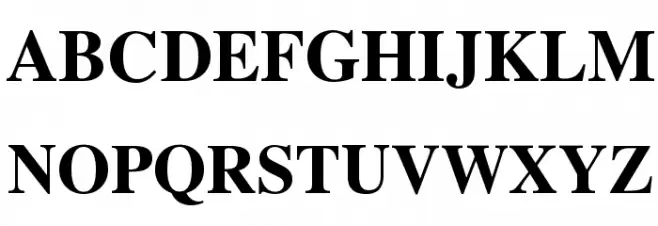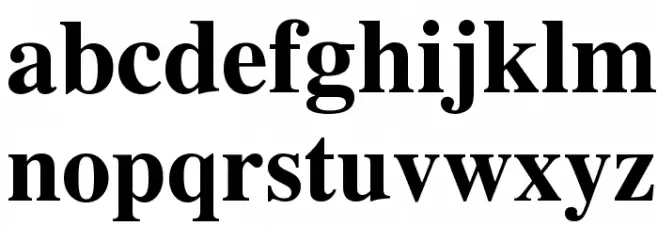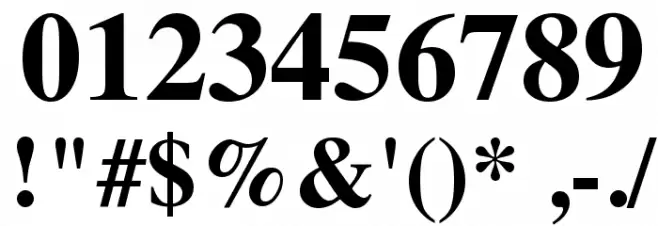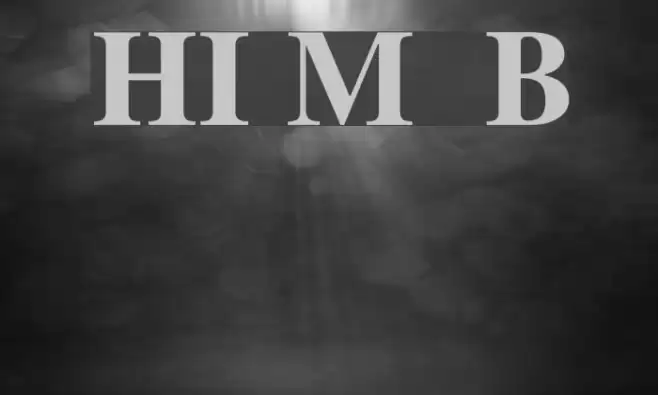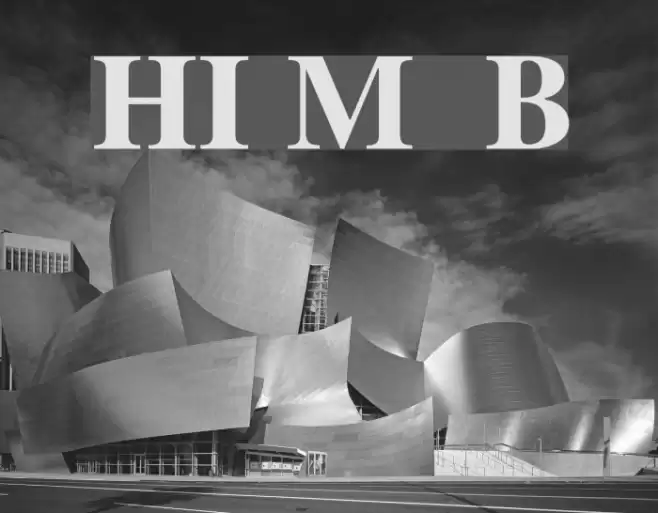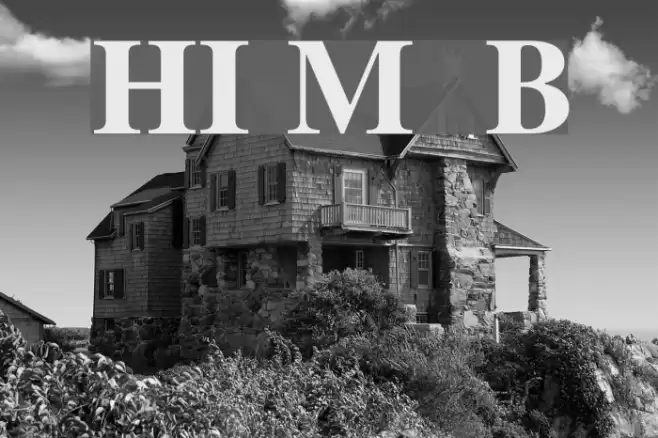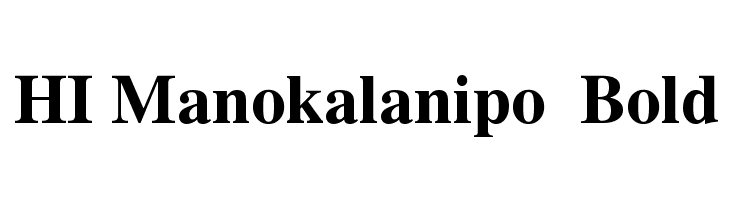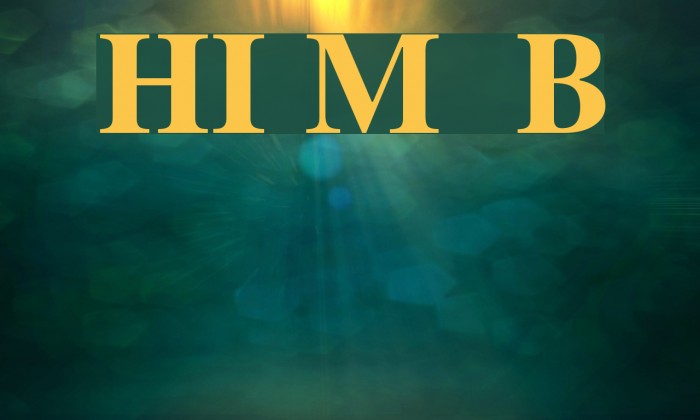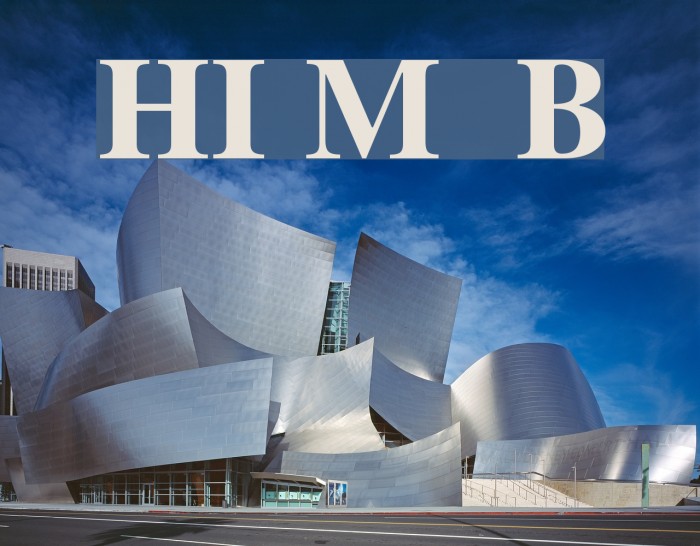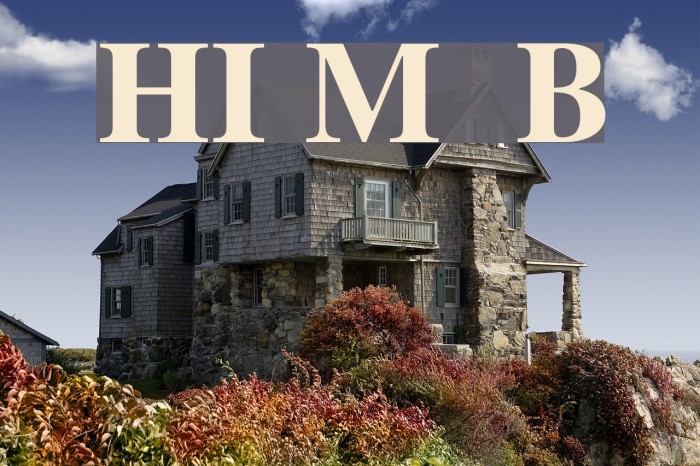
HI Manokalanipo Bold
This typeface features a bold and commanding presence with its strong, thick strokes and pronounced serifs. The uppercase letters are robust and authoritative, while the lowercase characters maintain a consistent weight, providing a harmonious balance. The numerals are clear and easily distinguishable, making them suitable for various applications. The special characters are well-defined, adding versatility to the font. Its classic design is reminiscent of traditional serif fonts, yet it carries a modern twist that makes it suitable for contemporary use.
A bold serif typeface with strong strokes and a classic yet modern appeal.
- Proposed Projects: Ideal for headlines, branding, editorial design, and any project requiring a strong, authoritative typeface.
- Category: Serif
- Contrast: High
- Overall Style: Classic
- Use Case: Headlines, Logos, Editorial design